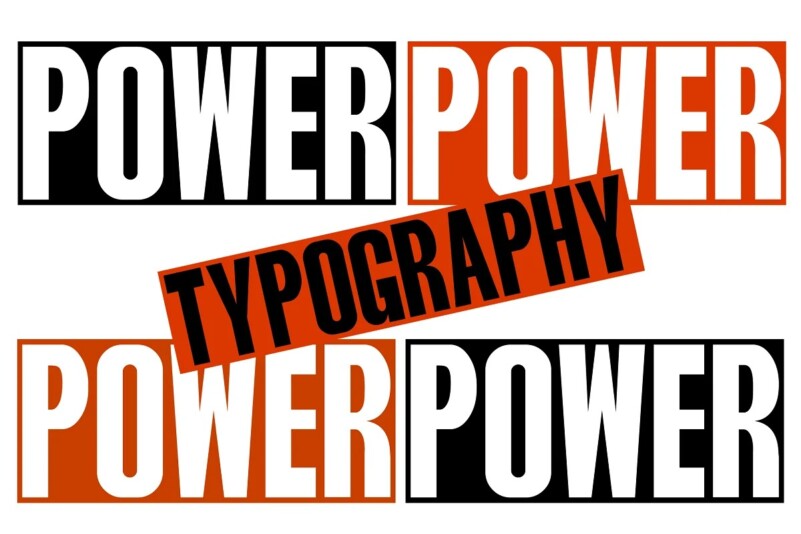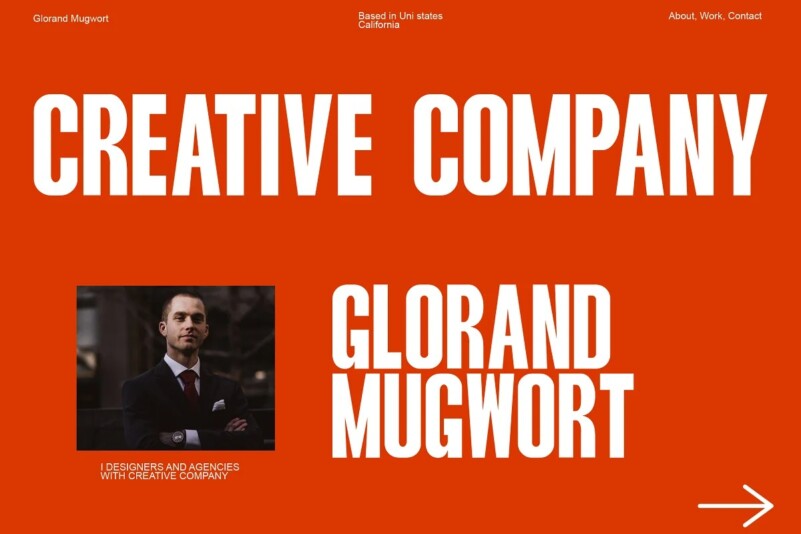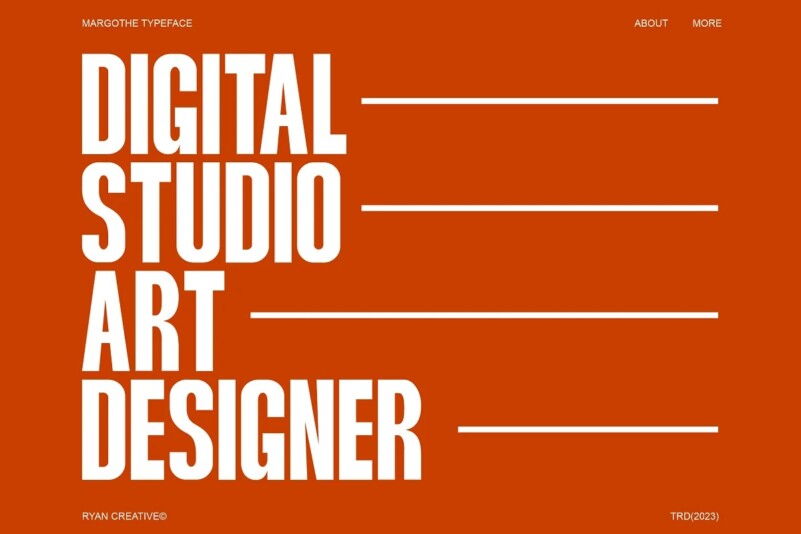
Marghote Font
Marghote Font – an elegant and clean font with a slim and slightly elongated design. This font is bold and condensed, making it look more minimalist and easy to read. Marghote can be used in modern and contemporary designs, and is suitable for use in various fashion media, posters, magazines, typography and other digital media.